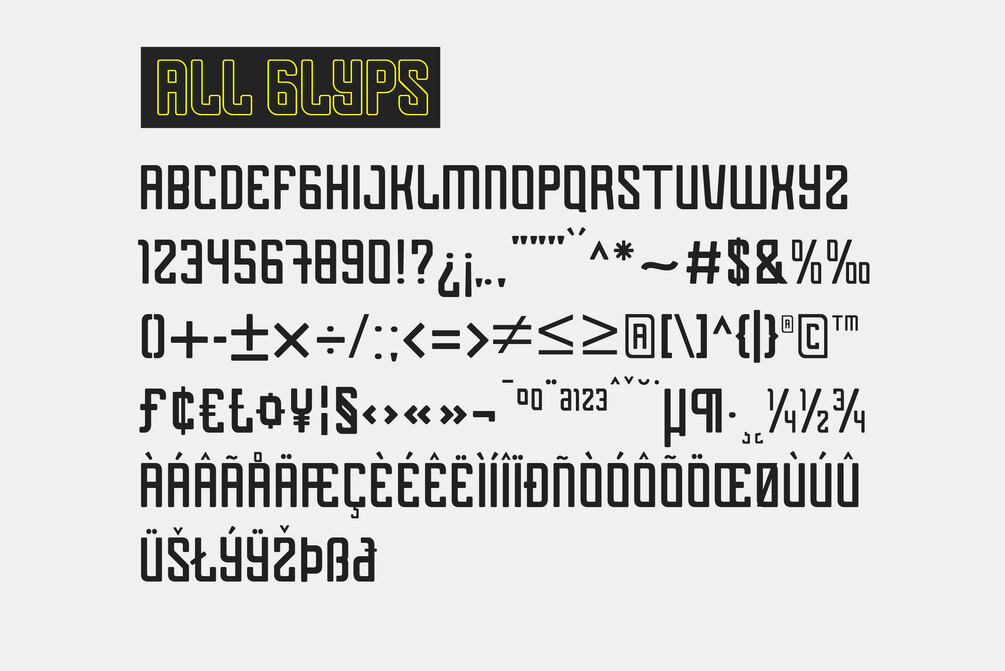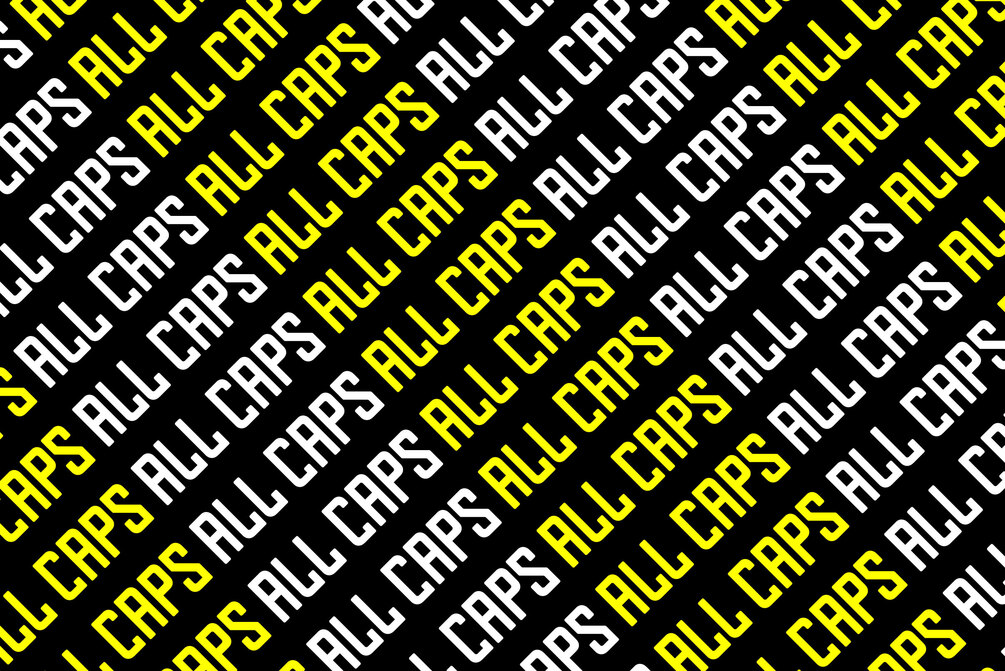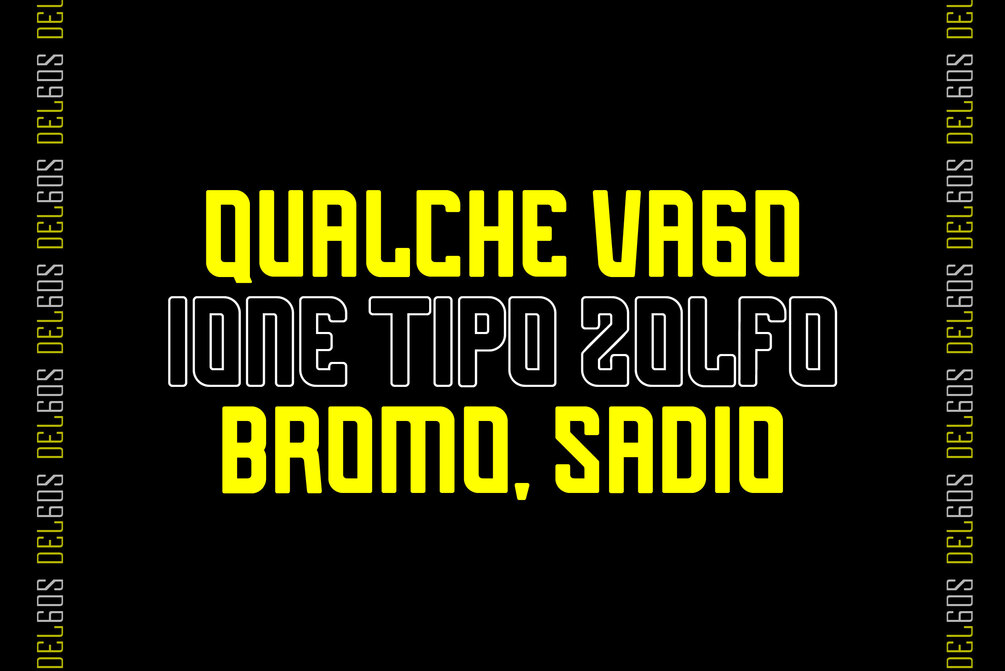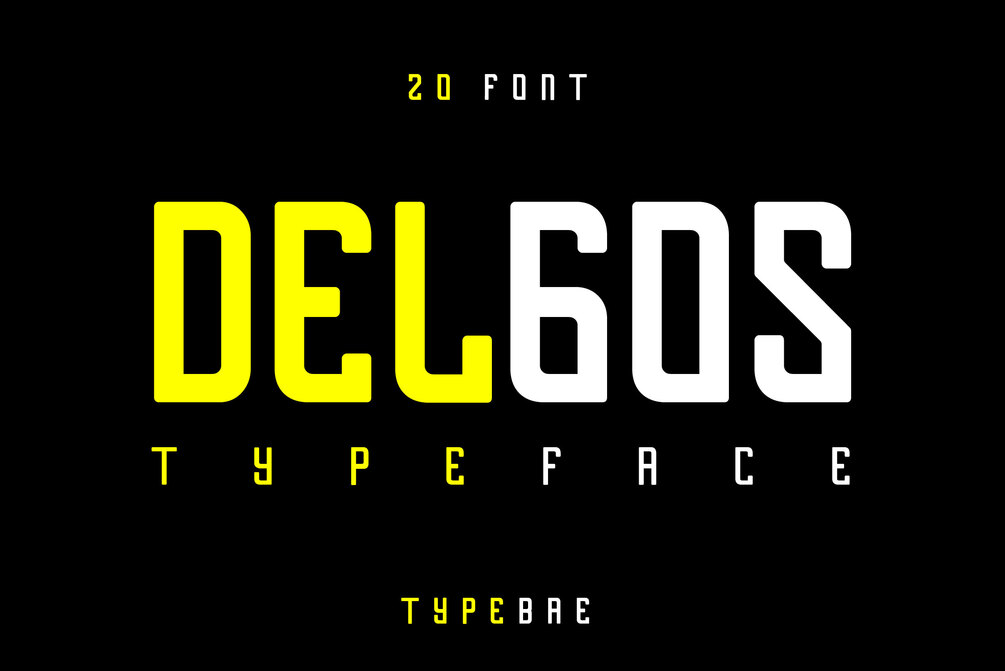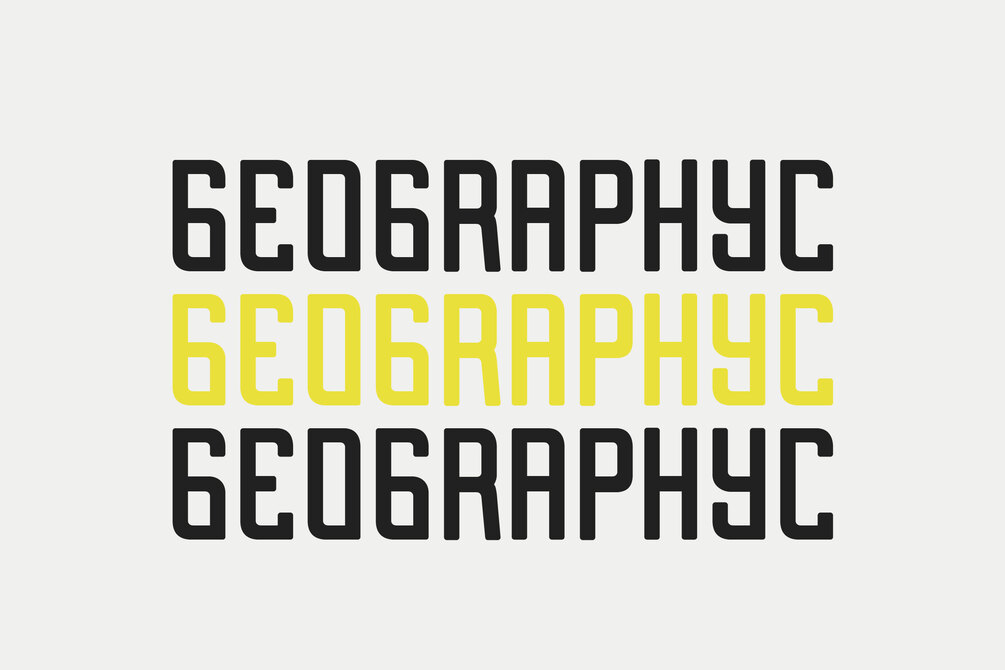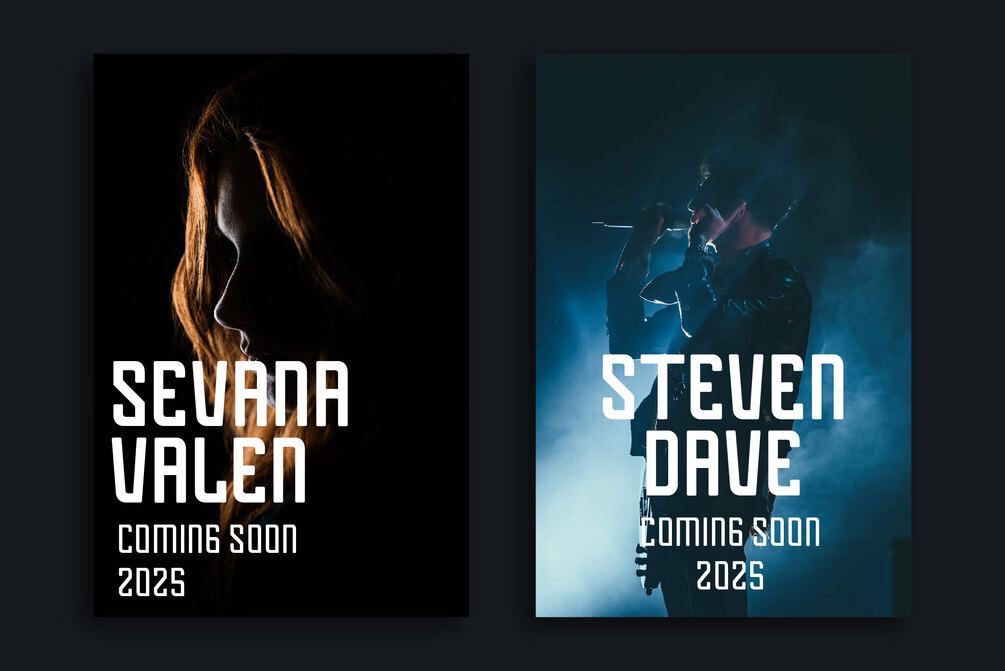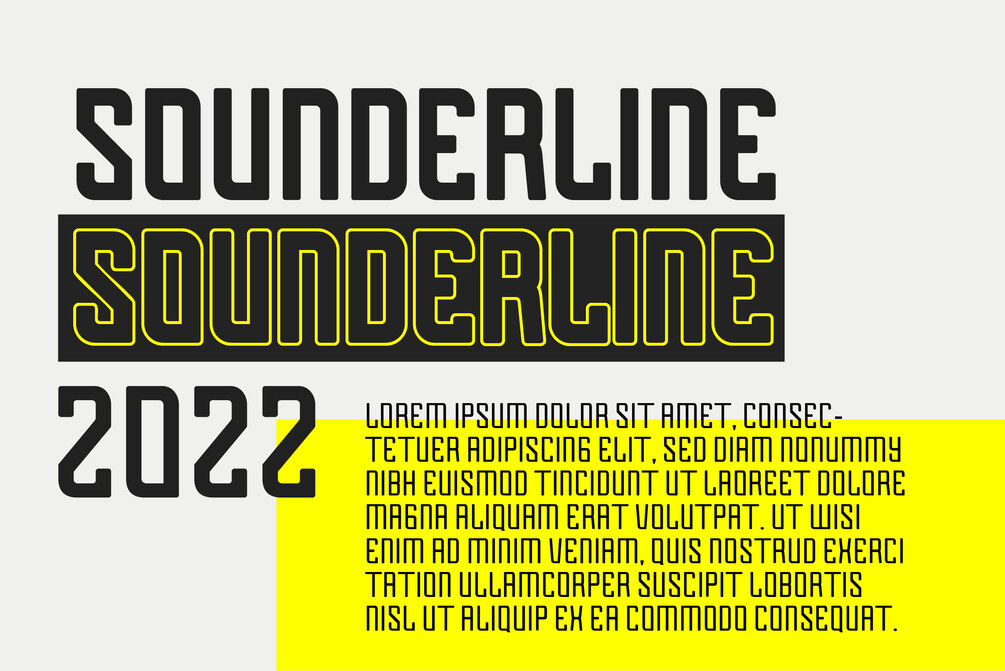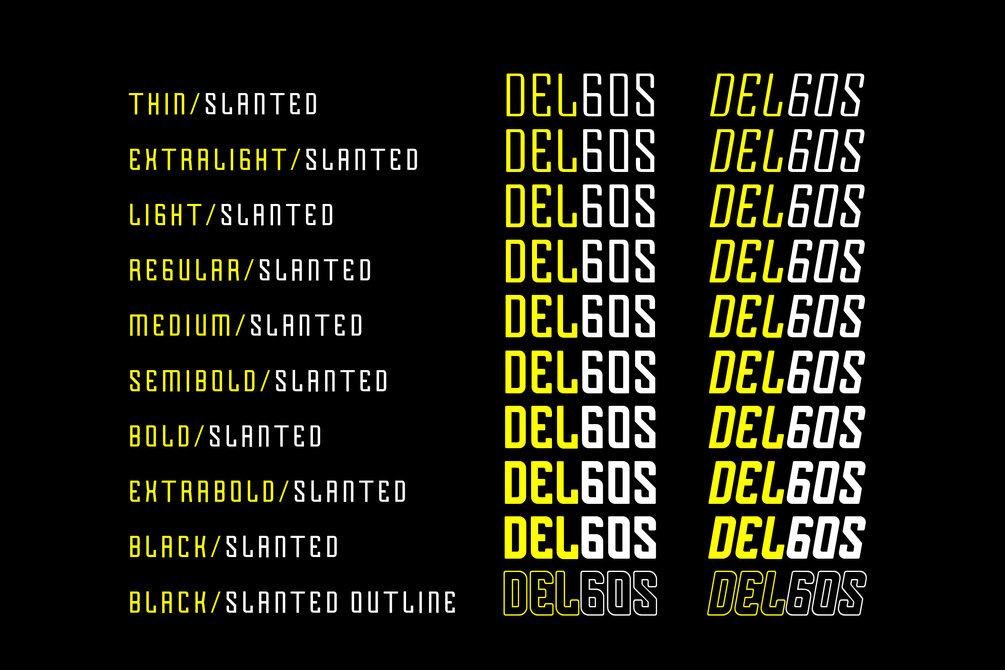
Delgos
Delgos is a display font family. It is very suitable for logos, headlines, posters and various other designs that require an assertive touch.
• 20 Font, 9 Weight
• Slanted & Outline
• All Caps, Numbers & Punctuation
• Multilingual Support